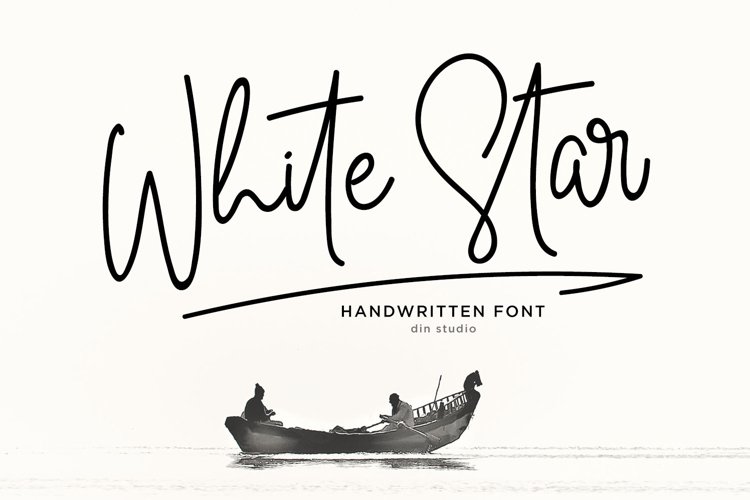
White Star- Chic Handwritten font
White Star
Introducing White Star- Chic Handwritten font made with naturally handwritten.it's bring beatiful and chic typeface. White Star font best use for logotype, branding, wedding and quotes.
White Star Features :
• Beautiful ligatures
• Numbering & punctuation